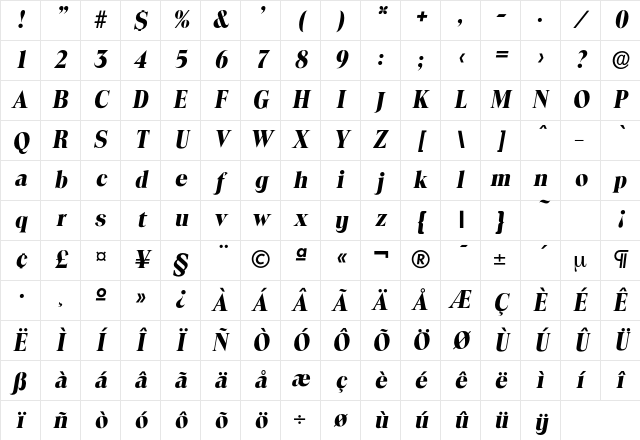
Toledo-BoldIta Regular Free Font
Toledo-BoldIta Regular
Complete Toledo-BoldIta Regular glyph index. Displaying only characters natively supported by Toledo-BoldIta Regular font.
Design Context for Toledo-BoldIta
Toledo-BoldIta is a composed and adaptable typeface that performs quietly and consistently across a wide range of design contexts. Its bold stroke weight gives it real presence on the page.